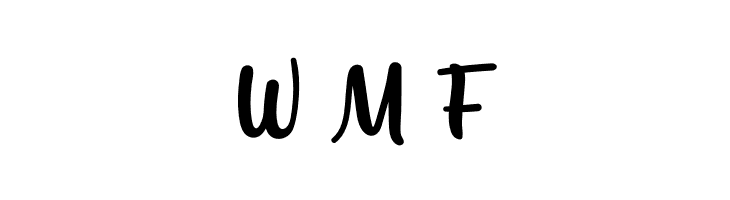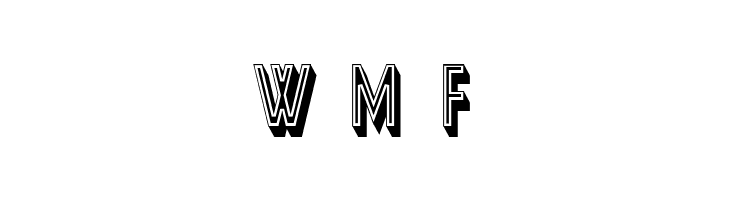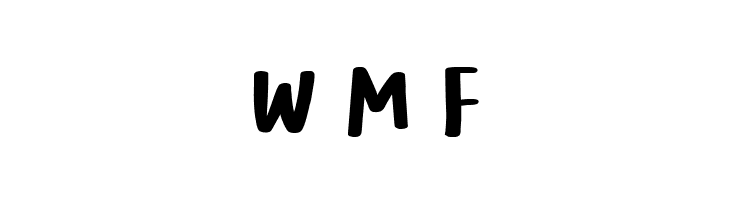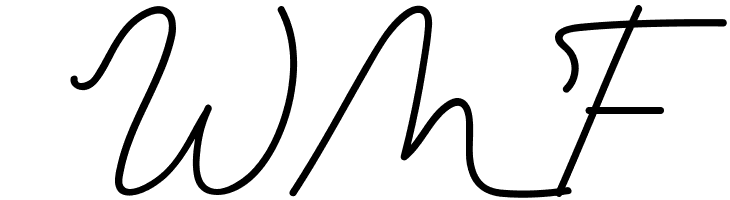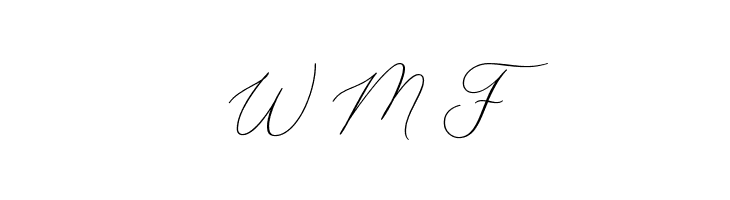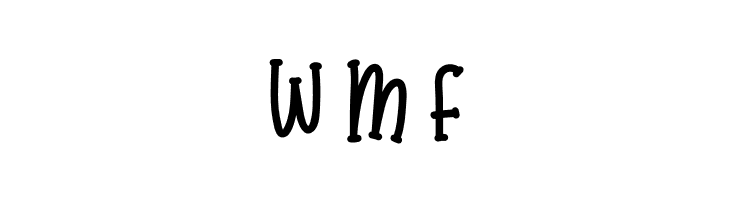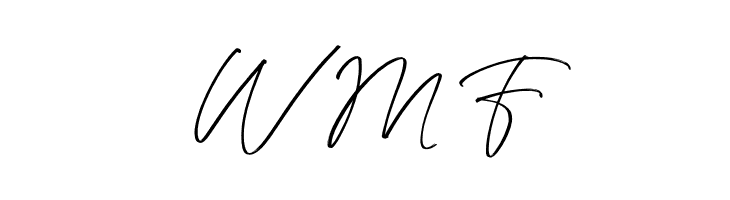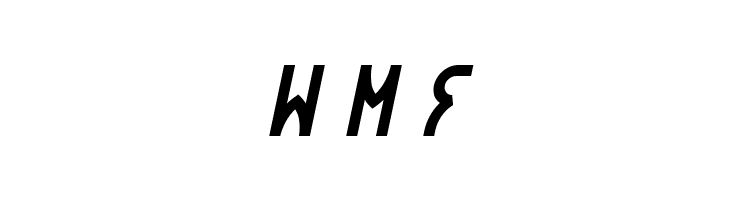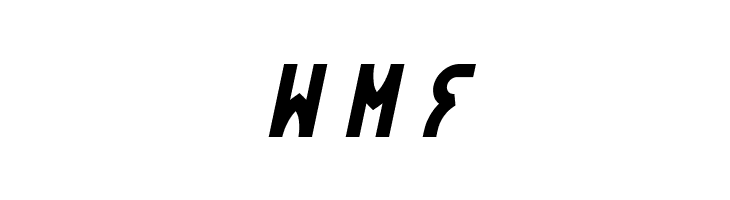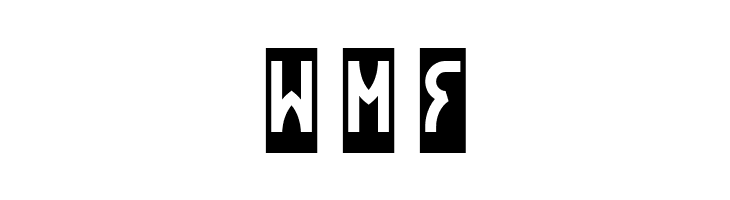
A bold, brush-style script font with dynamic and expressive strokes.
A lively, cursive script font with flowing, connected letters and a whimsical charm.
A cursive, handwritten-style font with elegant, flowing strokes.
An elegant script font with flowing, interconnected letters and sophisticated style.
An elegant, flowing script font with graceful loops and swashes.
A graceful and elegant script font with flowing lines and delicate curves.
A bold, flowing script font with a modern and playful aesthetic.
A flowing, cursive script font with elegant, connected letters.
A playful, hand-drawn font with a whimsical, organic style.
A bold, geometric font with a futuristic and modern aesthetic.
A bold, geometric font with a futuristic and dynamic style.
A bold, italicized font with a modern, dynamic style.
A bold, modern italic font with geometric shapes and dynamic style.
A modern, hollow geometric font with a futuristic style.
A modern, hollow, inverse font with geometric shapes and bold outlines.
A bold and ornate blackletter font with intricate and angular letterforms.
A fluid, handwritten-style font with a personal and expressive touch.
An elegant, flowing script font with bold, cursive letterforms.
A bold, outlined slab serif font with a three-dimensional effect.
A bold slab serif font with strong, structured characters and uniform stroke width.
A bold slab serif font with rounded edges, perfect for impactful headlines.
A modern, geometric sans-serif font with a futuristic and sleek design.
A playful, handwritten font with smooth, rounded edges and a casual style.
An elegant script font with flowing, cursive strokes and graceful curves.
An elegant, flowing script font with sophisticated charm.
An elegant, flowing script font with a modern touch.
A bold, playful handwritten font with thick, rounded strokes.
A playful, casual handwritten font with smooth curves and a friendly appearance.
A bold, three-dimensional font with a shadow effect for dynamic visual impact.